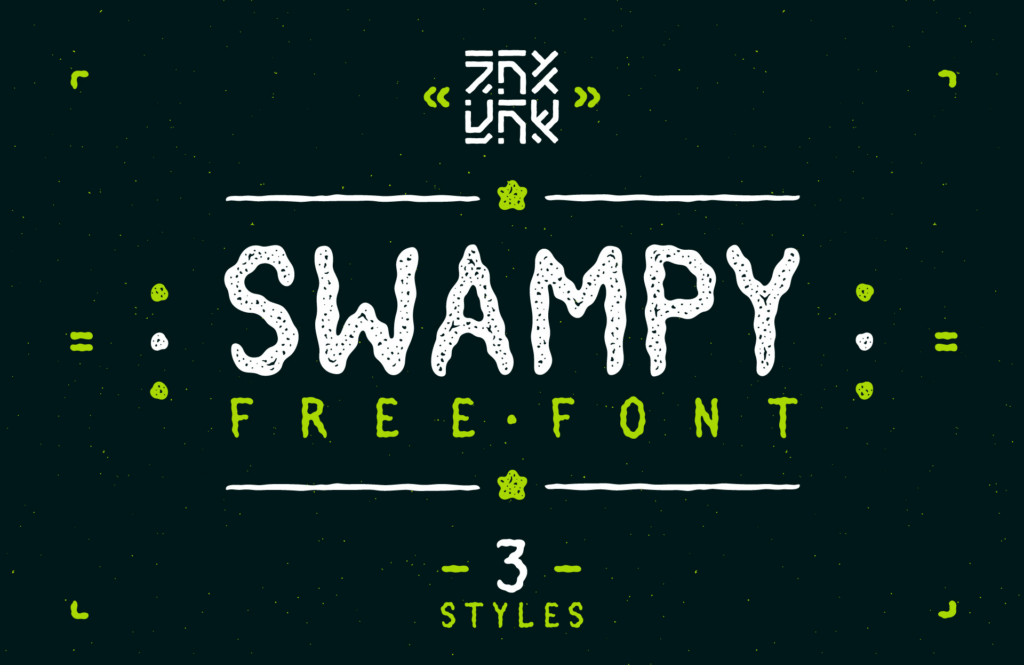
Swampy free handmade font family by TimXez. It comes in 3 variants: Sand, Clean and Dirt, contains all caps letter, numbers and symbols, supports Latin and Cyrillic languages.
Swampy Free Font